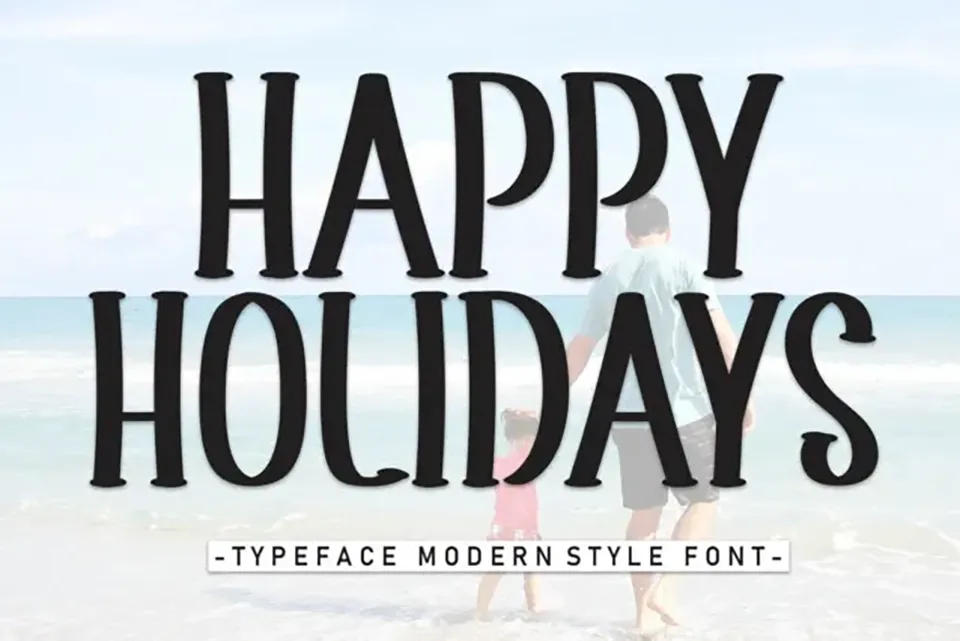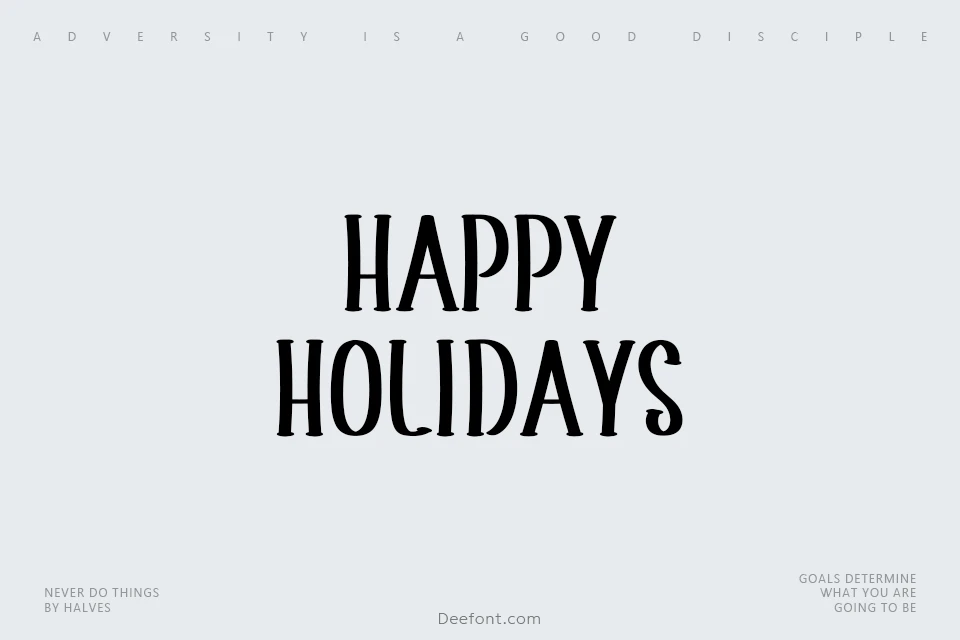
Happy Holidays Display Font
Happy Holidays Display Font is a delightful all-caps display Font.Perfect for Christmas cards, holiday invitations, seasonal branding, and any design project that needs a playful, celebratory touch. The font’s friendly and whimsical character makes it ideal for wedding invitations, greeting cards, logos, and other designs requiring a customized festive appearance.